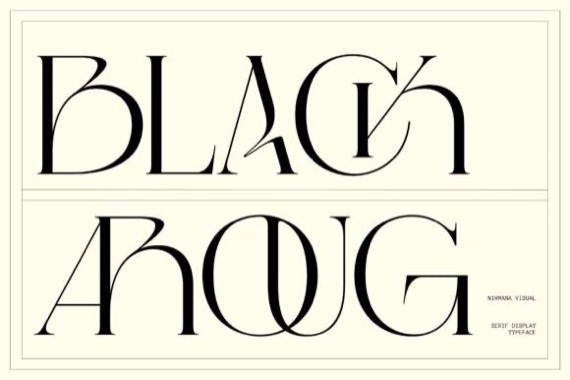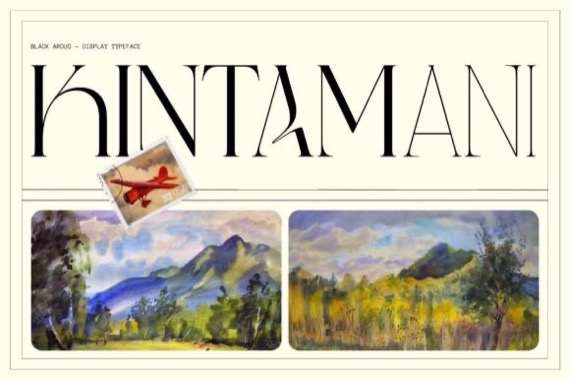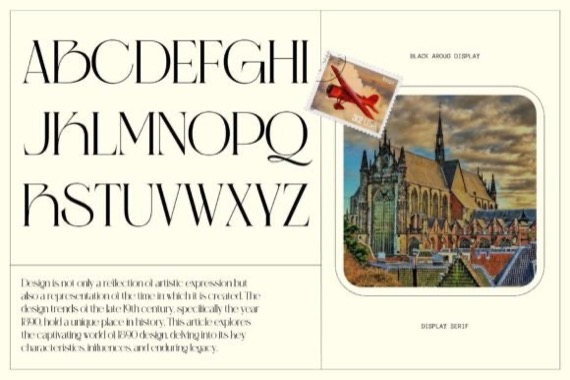
Black Aroug is a new fresh and cool serif font that was created and shared by Sigit Dwipa, it’s inspired by Renaissance Design Era. Black Aroug offers beautiful typographic harmony for a diversity of design projects, including logos & branding, social media posts, advertisements & product designs.
Black Aroug Serif Font